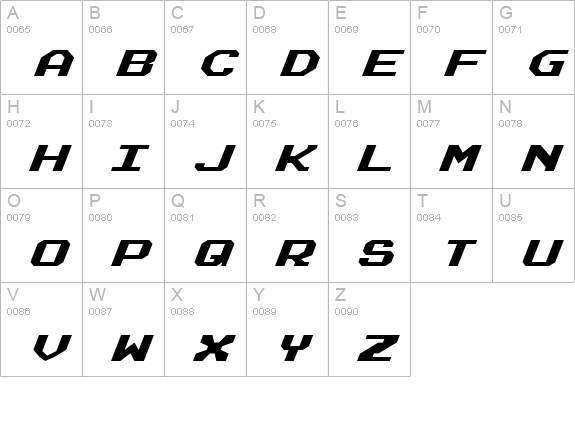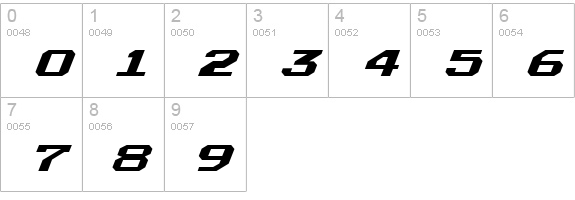
Realpolitik Expanded Italic is a distinctive, extended-width, italic variant in the Realpolitik typeface family \xE2\x80\x94 well suited to design and typography projects.
Realpolitik Expanded Italic font is a sleek and modern typeface that exudes sophistication and elegance. Its italicized design adds a touch of flair and style to any project, making it perfect for conveying a sense of professionalism and creativity. This font is highly versatile and can be used for a wide range of design applications, from branding and advertising to editorial and web design. What sets Realpolitik Expanded Italic font apart is its unique combination of sharp angles and smooth curves, creating a visually striking look that captures attention and leaves a lasting impression. Whether you're looking to make a bold statement or add a subtle touch of refinement, this font is sure to elevate your designs to the next level. Best of all, Realpolitik Expanded Italic font is available for free download at FontsMarket.com, making it easily accessible to designers and creatives looking to enhance their projects with a sophisticated and modern typeface. Don't miss out on the opportunity to add this stunning font to your collection and take your designs to new heights.